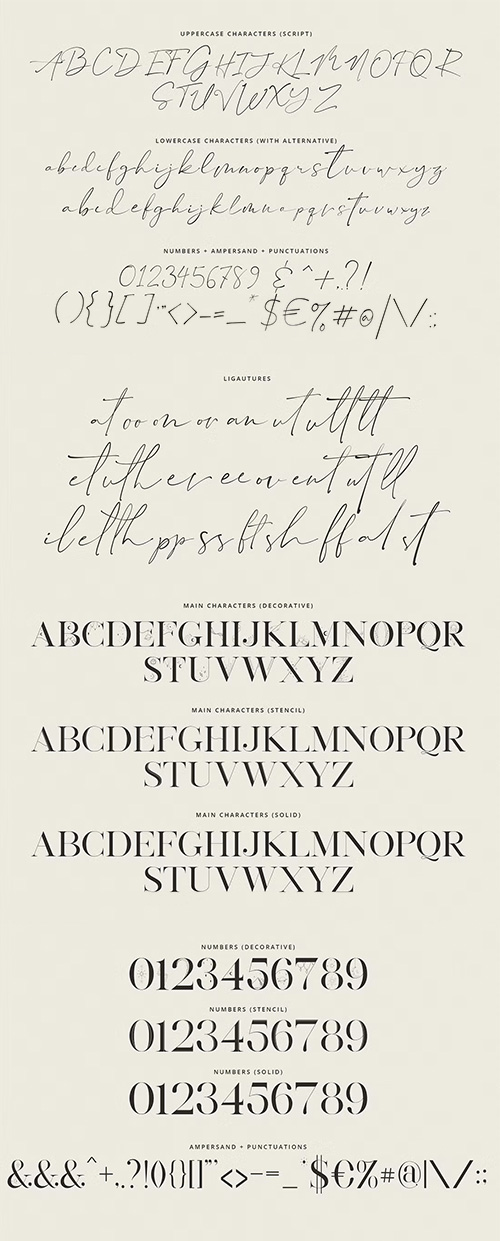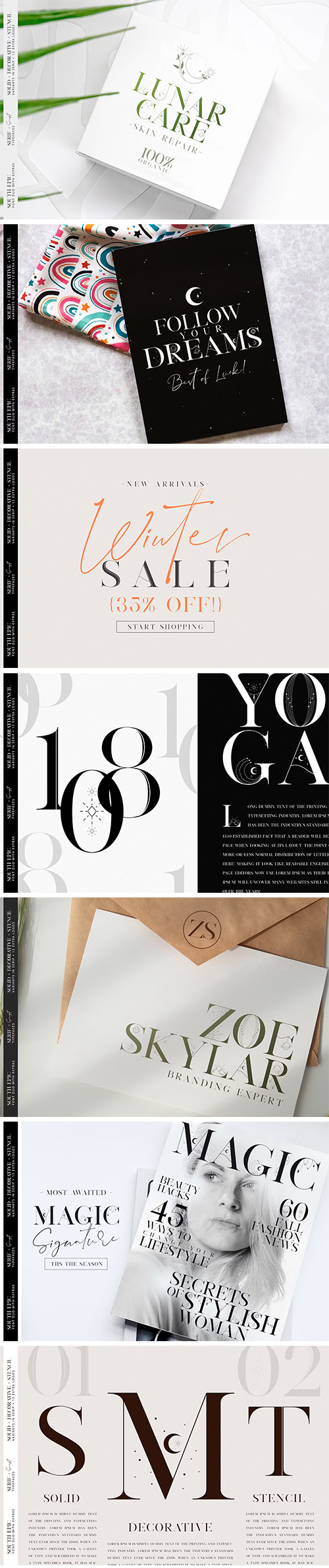
- South Epic is an font combination of Serif and Script. Welcome to the world of dreaming fonts to make your typographic dream come true. South Epic is a fully decorative serif font featuring dreamy items, with epical items from each character you can make your new design. You can make your own branding or business branding with these amazing font combo. Not just decorative you will also get a stencil and solid version with a serif font and script font to add an extra look to your typography. Also as a bonus, you are getting 12 fully editable Adobe Photoshop and Illustrator logo files.